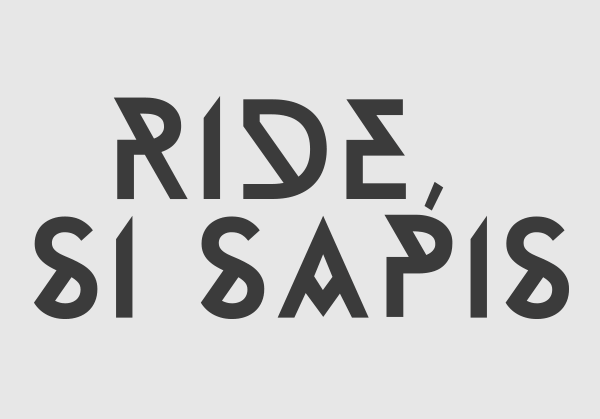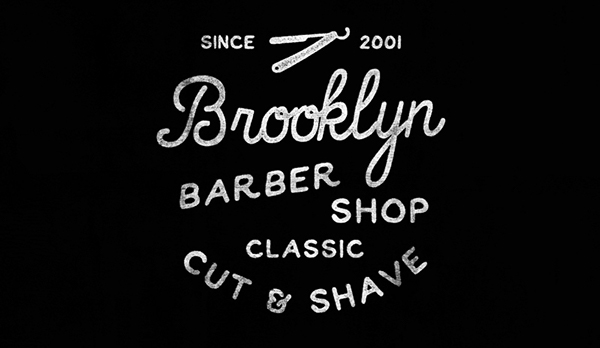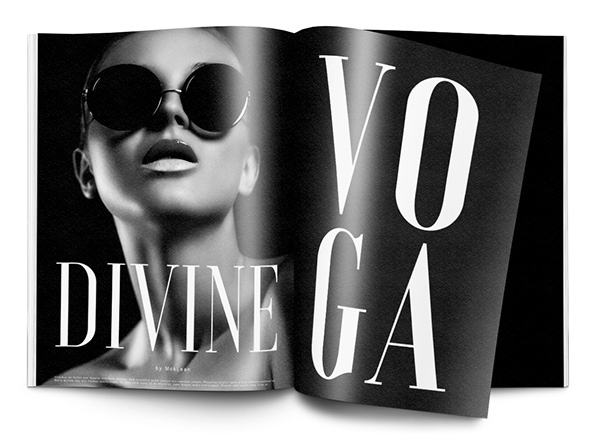
We all love design and many of us like to design posters for social issues, or illustrations for our self-design ego. We also love to use beautiful typography into our designs and since these are not for commercial use, we like to try new fonts, preferable FREE. In the meantime, there are so many fantastic designers out there that love to experiment and create new font faces and even better, they love to share them with us for free! Searching for some new typography inspirations, I found myself many such fonts for all kind of tastes. So, here I present to you 20 of those that inspired me more. Enjoy and share!
Aroly Font by Arvind Kumar
Aroly Font is a polygonal heading font. Since polygon made a huge trend, Aroly font was planned to be adaptable in all devices. First of all, high poly font with trigonal lines was created.
Anders Font by Tom Anders Watkins
This is an experimental project. Tom Anders wanted to create something he could give to everyone, almost as a thank you to the overwhelming support he has received of his work. Using influences from modern font design, Tom wanted something very minimal and a little unique, here’s the result.
Accent Font by Nelson Balaban
Accent is a free for commercial use display typeface designed by Nelson Balaban.
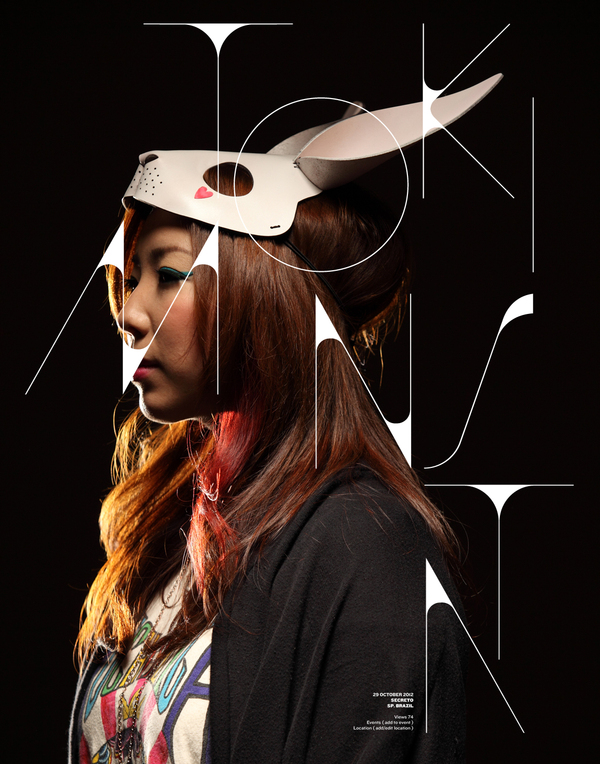
BARON Font by Fontfabric and Frank Hemmekam
Baron is an uppercase display typeface inspired by the classic sans serif font family’s. This typeface is, because of his many alternative options, perfect for usage in posters and headlines. Free for personal usage!
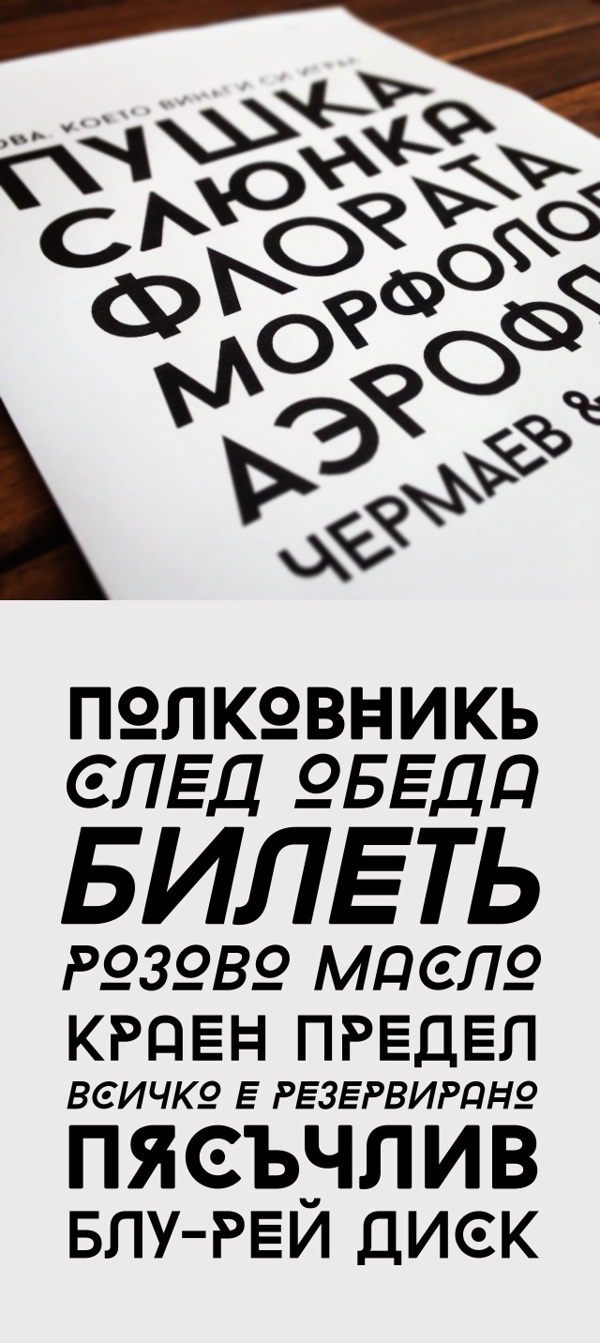
Billy font by Claire Joines
Billy’ is a free font that i initially designed to use on Claire Joines’s own art and for use in comics etc. since she’s uploaded it, it’s exceeded her expectations in the amount of interest it’s got.
Carioca font by Tano Veron and Yai Salinas
Experimental type. Cool & refreshing as fresh fruit. Free Download. Hope you like it!
Delicate font by FAAK&PAAT Studio
Delicate is a free download & available Typeface based on different Slab whithout thin strokes. Use it for elegant style.
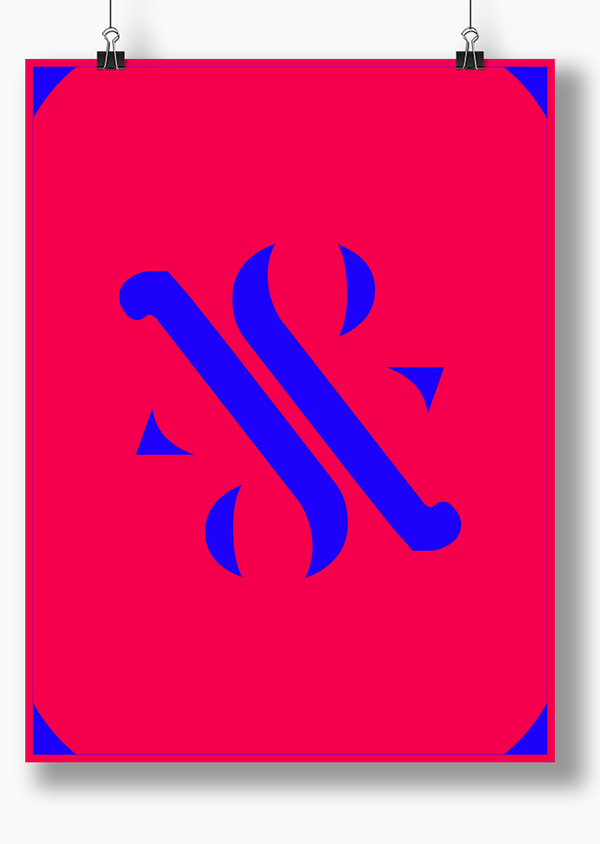
Gagalin font by Iordanis Passas
A 100% free comic font.
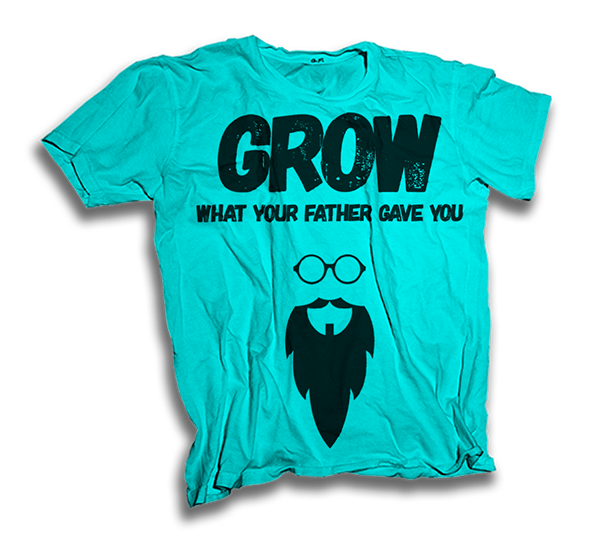
Global font by Anthony James
Global typefamily is a clean and concise serif font, perfect for editorials and commerical use.
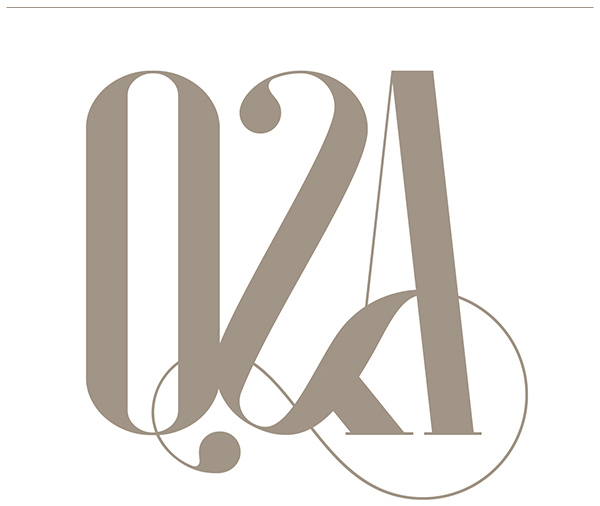
Gogóia font by Alan de Sousa
Gogóia is a yummi juicy font inspired by brazilian tropicalism. It is also a very thorn fruit that grows on a dry weather. And guess what: gogóia is also a song very known on gal costa’s voice. This font is available for free under creative commons license, and you can use it for both personal and commercial projects.
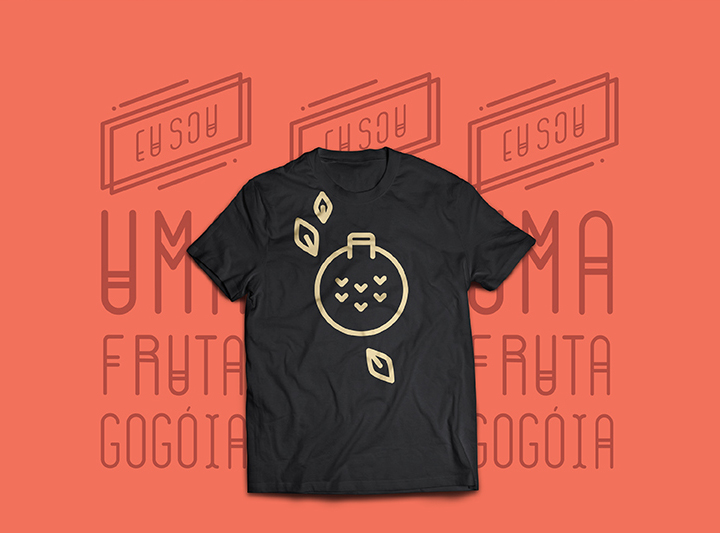
Gokú font by Anthony James
Gokú is a multilingual typeface, initially designed as a stencil font for the Basel & Geneva Watch Launch Event for Watches of Switzerland.
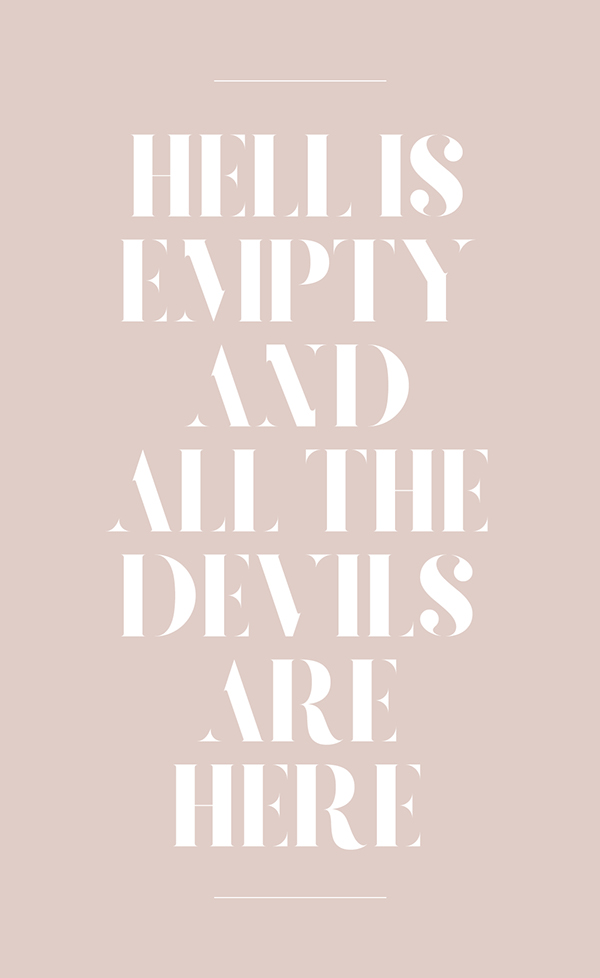
Finos font by Iordanis Passas and Anastasia Dimitriadi
Finos is a display typeface inspired by Greek retro cinema. It works perfect with open type support applications.The font is delivered in two weights Regular & Bold and in Open Type format. It supports Western European and Greek languages with lowercase and uppercase letters.
Jaapokki font by Mikko Nuuttila
Jaapokki is free font with 2 alternatives and large set of glyphs.
KINO 40 font by les83machines
Is a free for commercial and personal use, inspired in the old cinema handwrite style by les83machines
Metropolis 1920 font by Josip Kelava
Metropolis 1920 comes from the industrial movement of the 1920’s where skyscrapers where born. Using a double line technique, Josip Kelava wanted to create his own Art Deco style font that represented this era. The result is a bold, bumptious typeface with a stolidly calm disposition.
Voga is a condensed modern Didone typeface with three weights; Regular, medium and bold. Charles Daoud’s aim was to create a very elegant and “sexy” typeface with some unique letterforms based on the principle of contrast – curves vs. strong straight lines – thin hairlines vs. thick stems – ball terminals vs. geometric serifs. These caracteristics shape it into a glamourous display font primarily used for titles and large typography settings. Voga was inspired by iconic typefaces such as Bodoni and Didot. It has an extensive glyph set that supports languages for the Americas and most of Europe.